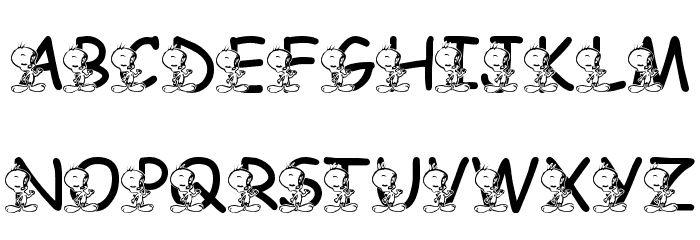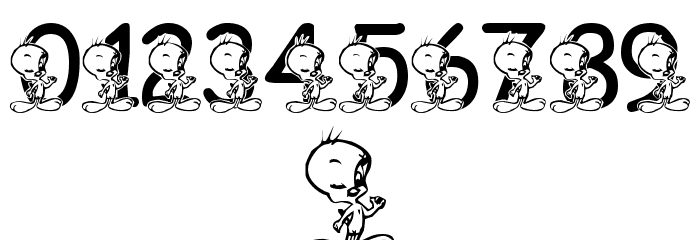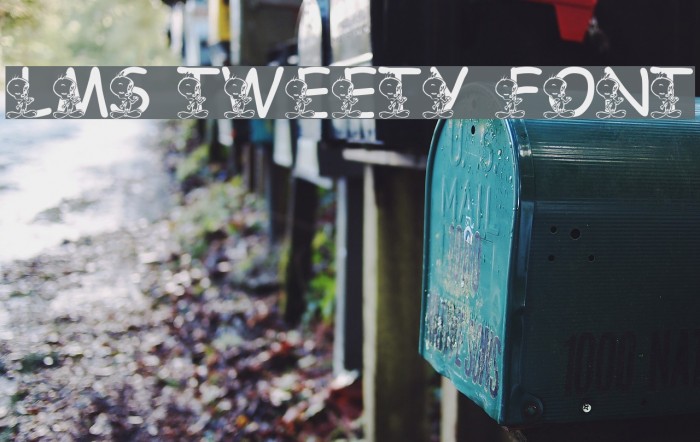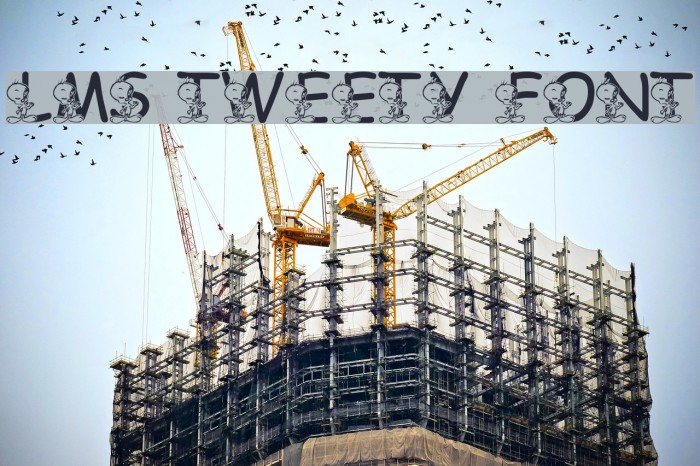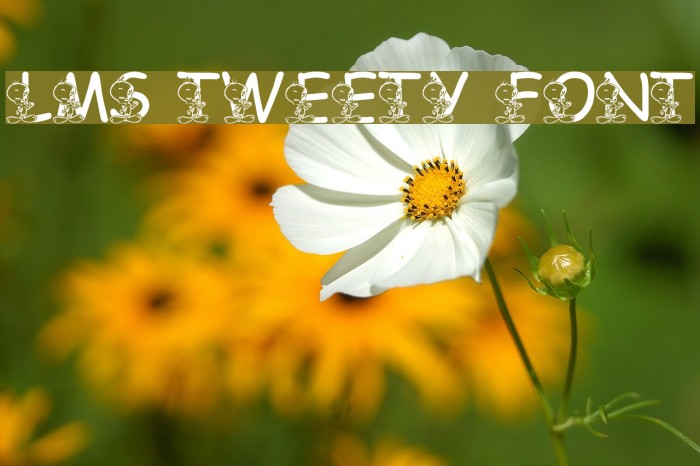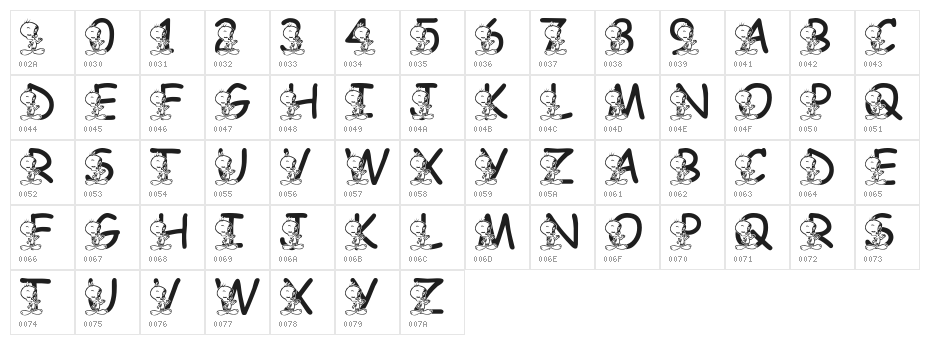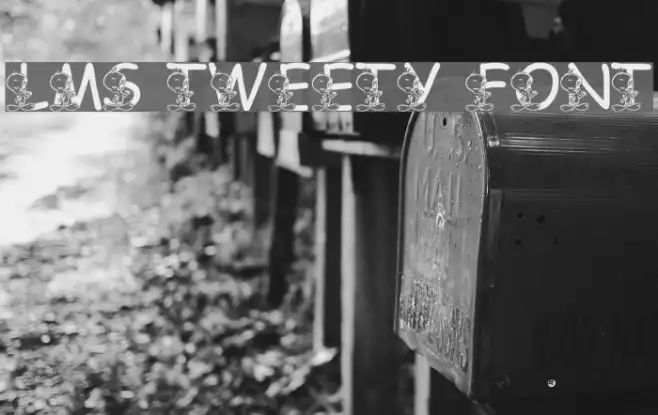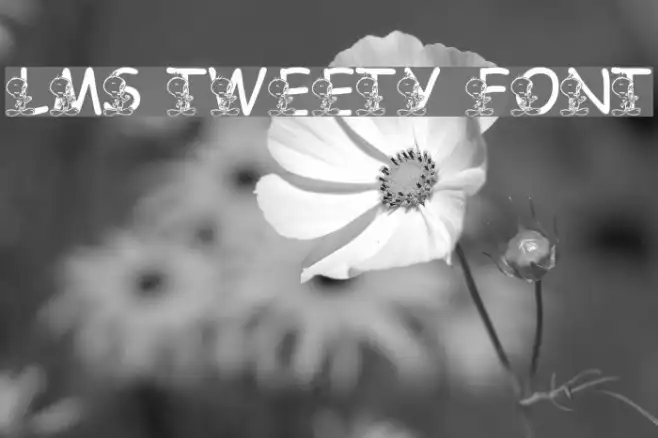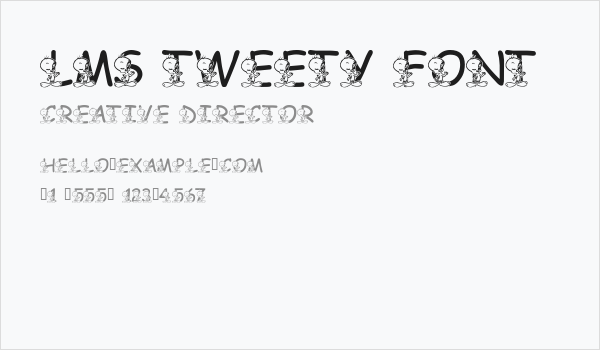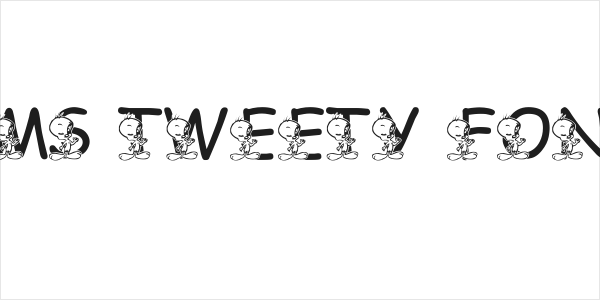
LMS Tweety Font Font
This playful and whimsical font features a cartoon character integrated into each letter and number, creating a lively and animated appearance. The characters are bold and rounded, with the cartoon figure adding a unique and entertaining element to the design. This font is highly decorative, making it ideal for projects that aim to capture attention with a fun and engaging style. The integration of the character into each glyph adds a layer of complexity and charm, making it suitable for children's content or themed designs.
A playful, cartoon-themed decorative font with integrated character designs.
- Proposed Projects: Ideal for children's books, playful posters, themed party invitations, and cartoon-related branding.
- Overall Style: Playful, Whimsical